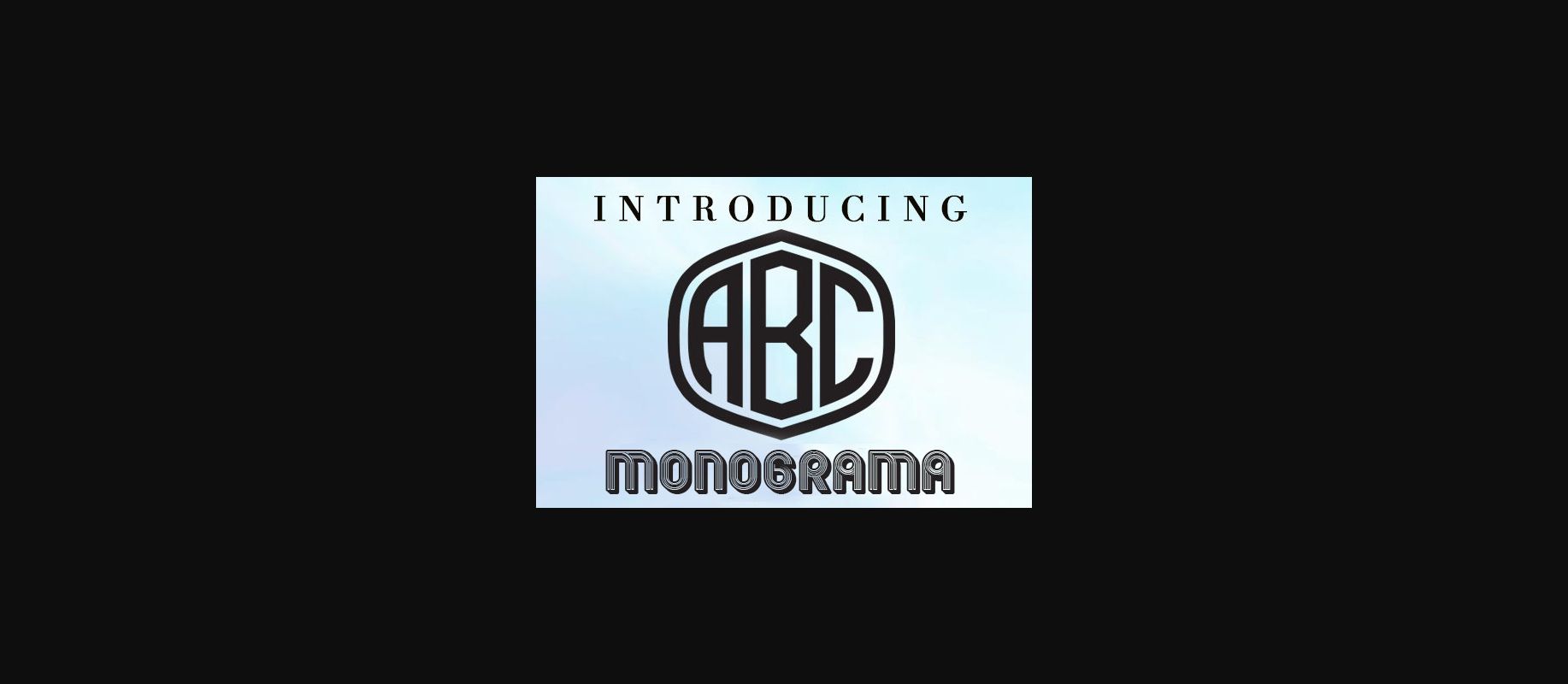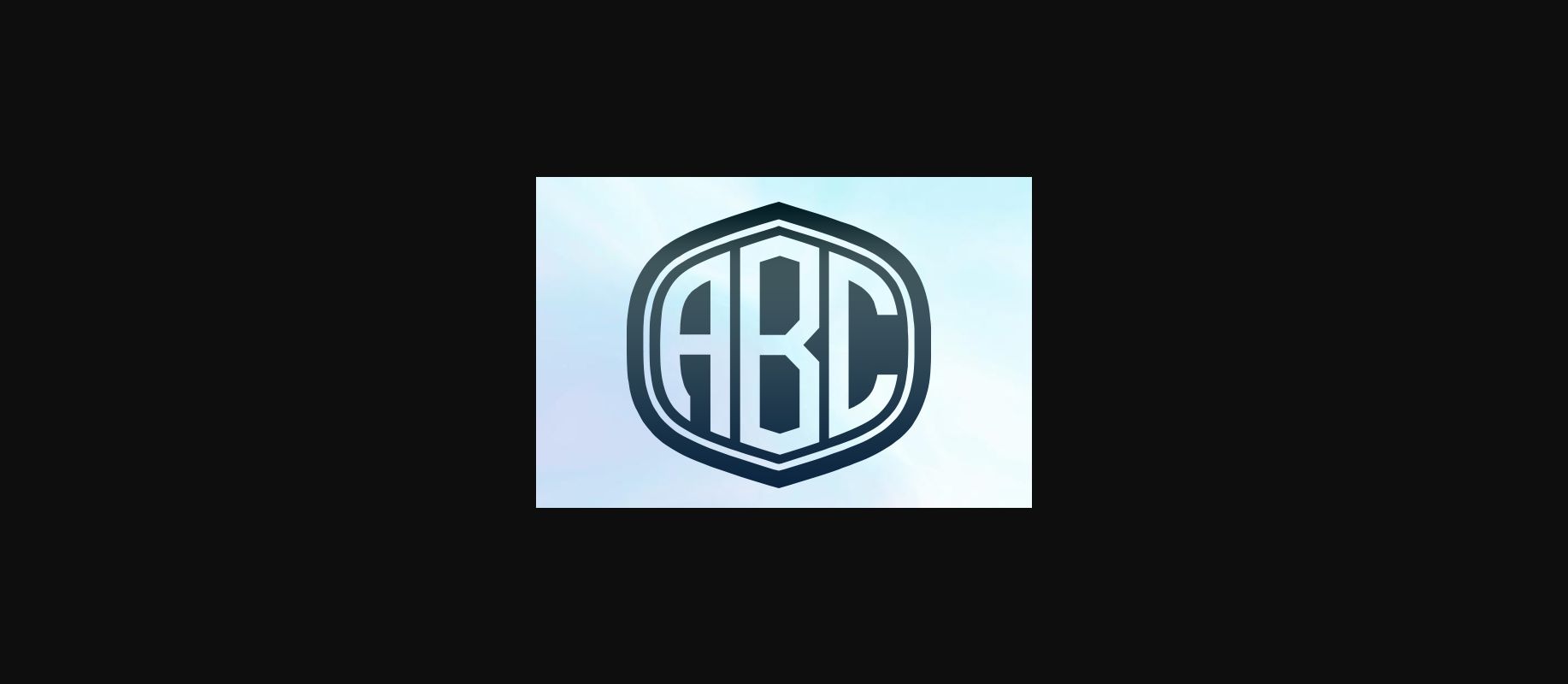
HomeDecorative FontsMonograma Font Decorative Fonts Monograma Font FacebookTwitterPinterestWhatsApp 1 of 4 ... Monograma Font Poster 2... Monograma Font Poster 3... Monograma Font Poster 4... About Monograma Font Monograma is a stunning monogram 3-letter font. It will look great on every poster, banner, or print. For making your own combination of letters please use vector software, such as Corel or Illustrator. DOWNLOAD NOW People also explored Ruberthenry Font Sanliurfa Font Hello Brother Font Seabright Font Bataknesse Font The Scotland Font Ronhilli Font Housten Font Angel Maleficent Font 162 0 TagsMonograma Font Previous articleTauler FontNext articleCircusant Font LEAVE A REPLY Cancel reply Comment: Please enter your comment! Name:* Please enter your name here Email:* You have entered an incorrect email address! Please enter your email address here Website: Save my name, email, and website in this browser for the next time I comment. Personal Use Free Allea Sweet Personal Use Free Read more about this font Shelly Personal Use Free Read more about this font Kilsonburg Personal Use Free Read more about this font Child Witch Personal Use Free Read more about this font BLOG Using Fonts in Digital Marketing: Tips to Strengthen Your Brand Identity In the realm of digital marketing, every visual element plays a crucial role in shaping a brand's identity, and fonts are no exception. The... The 10 Best Handwriting Fonts to Add Personality to Your Designs Best Fonts for T-Shirt Design – Top 2025 Picks Free Fonts Risk: Why Free Fonts Can Be Dangerous for Designers